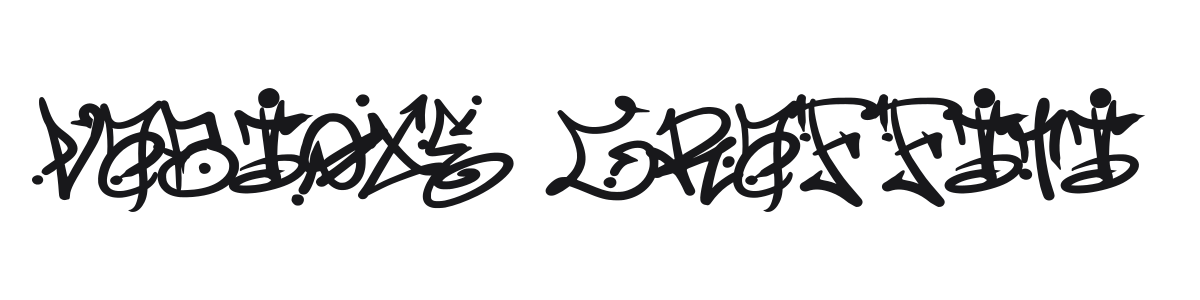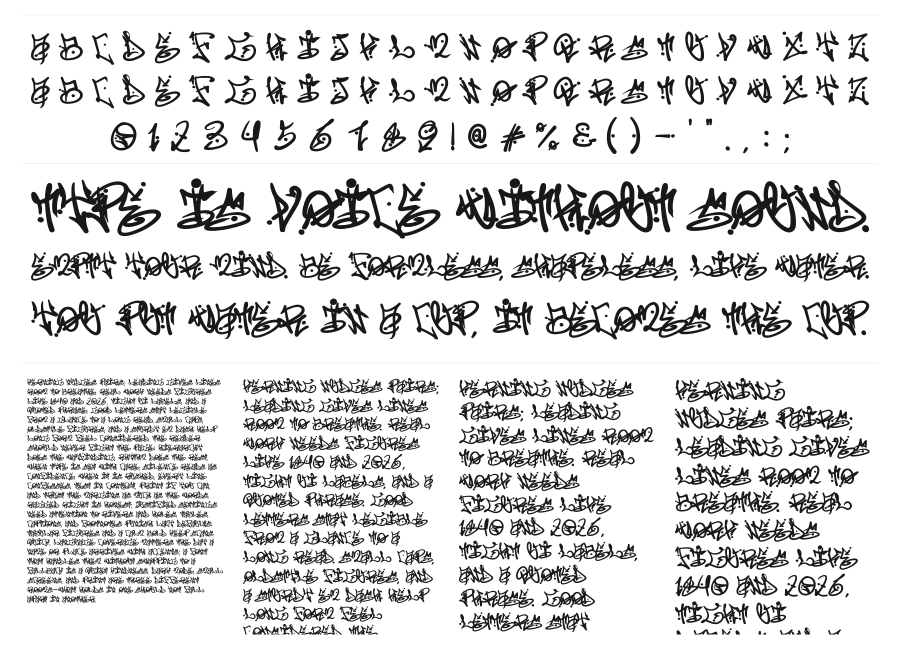
Vabioxe Graffiti
Vabioxe Graffiti is a wildstyle graffiti tag font that captures the dense, interlocking energy of hand-sprayed street lettering. Characters compress and collide into a flowing horizontal mass of spurs, loops, and tapered strokes, prioritizing attitude over readability. It belongs on album covers, streetwear graphics, and anywhere urban authenticity matters.